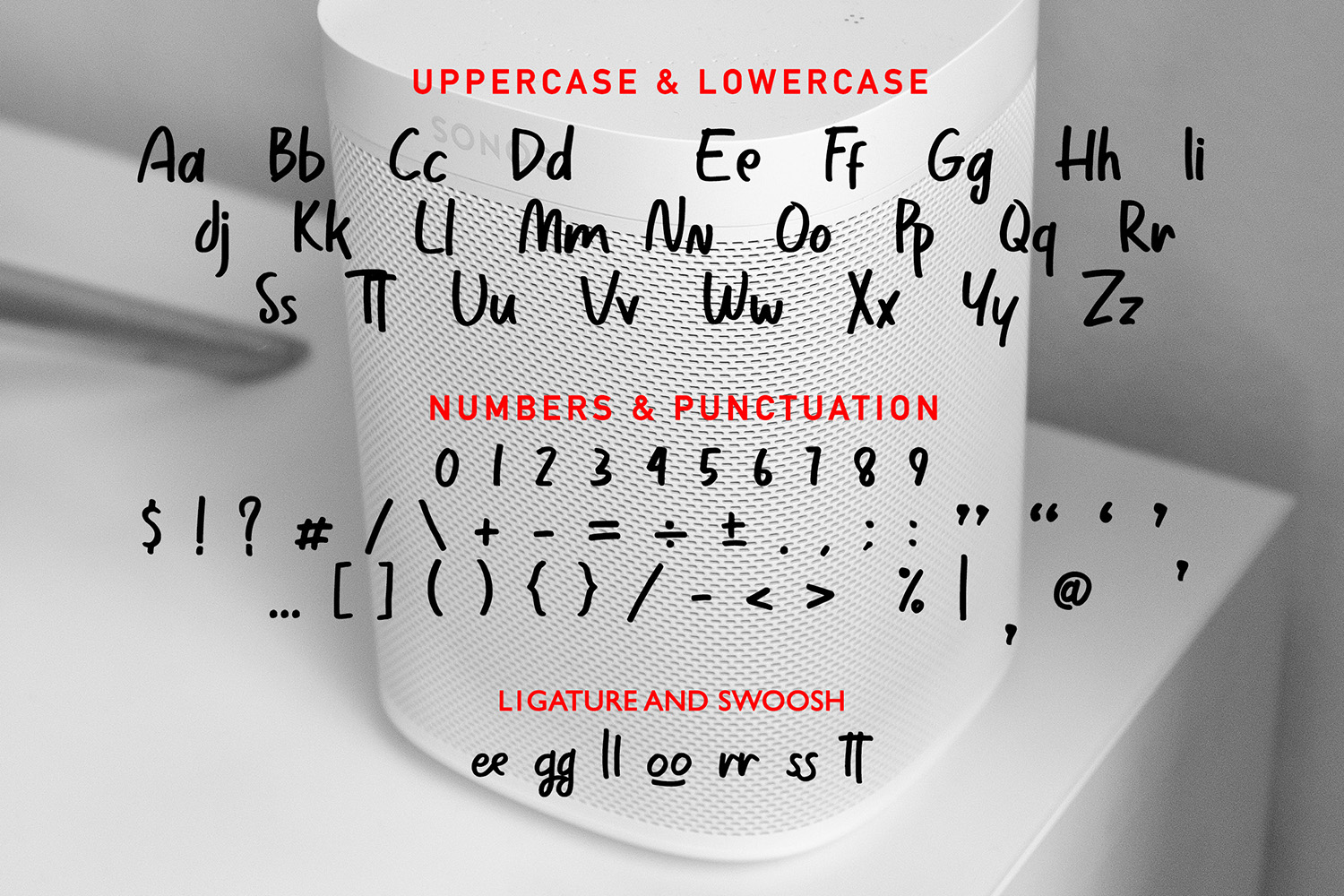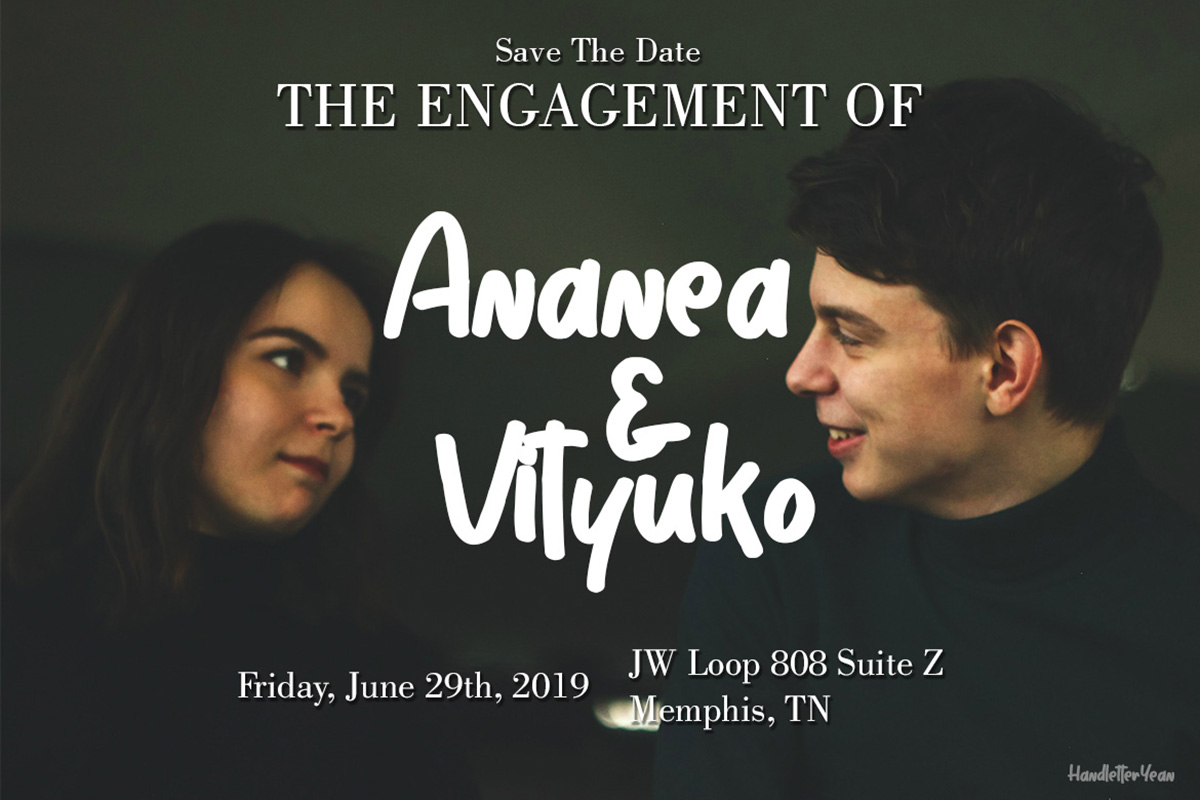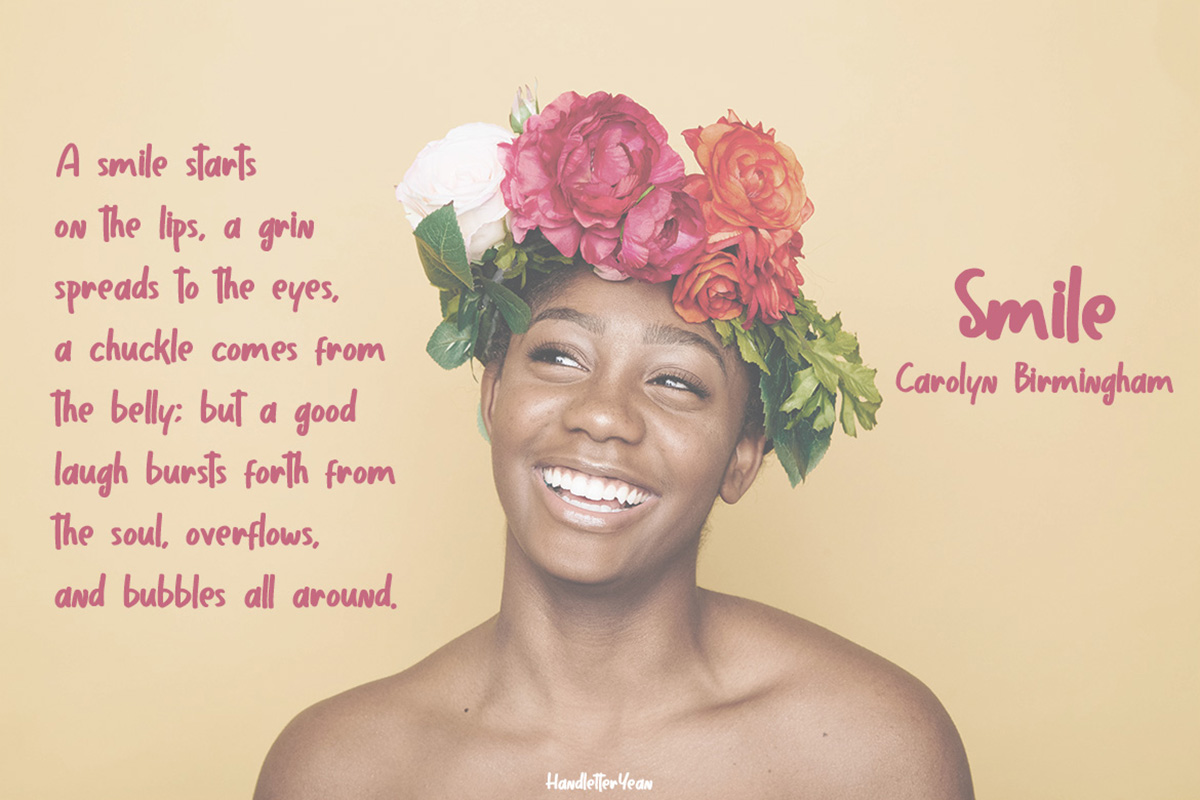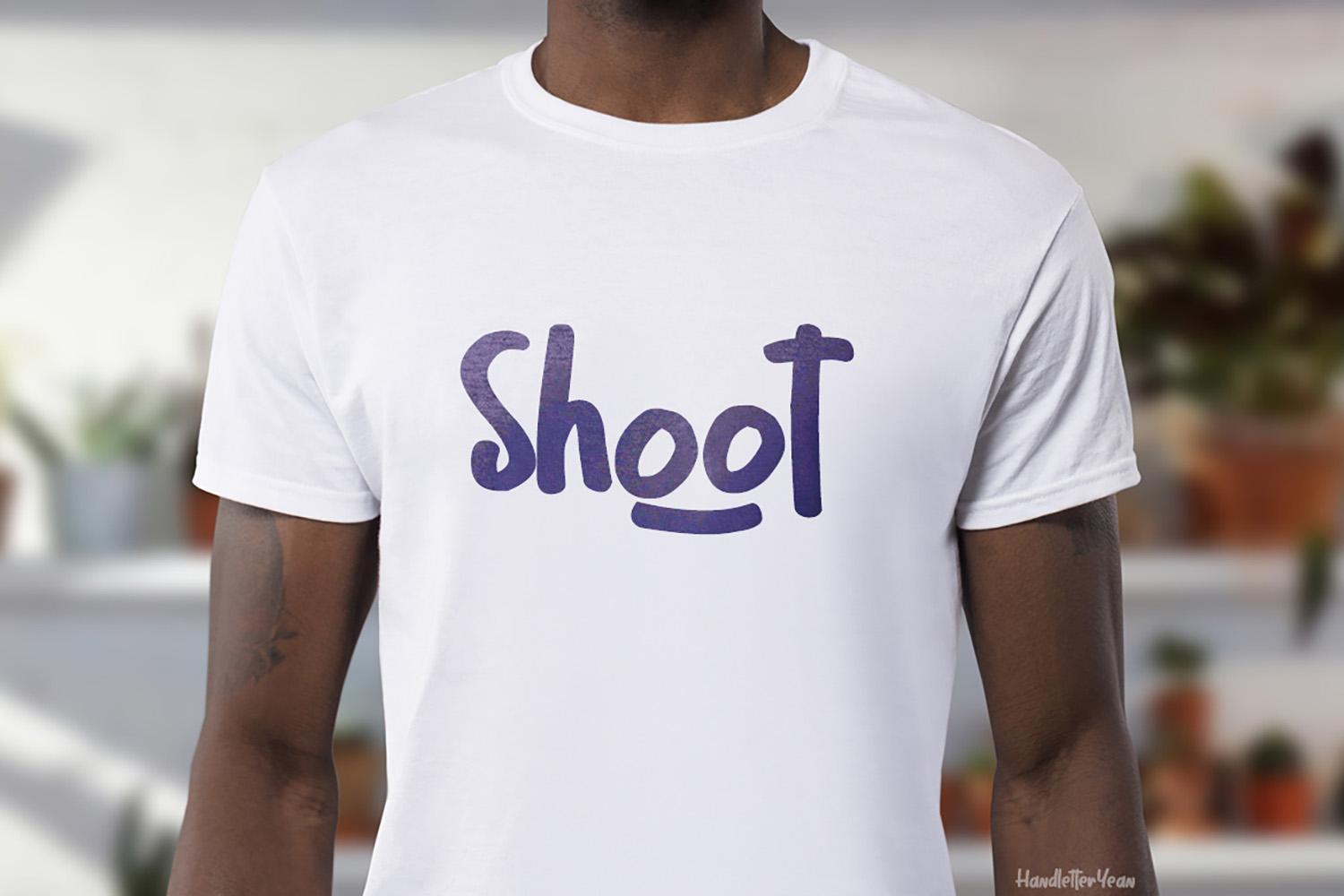
Boombox Free Font
Boombox Free Font is a cute script font which was made to resemble cuteness and playfulness around us in our daily life. With Boombox you can make any of your designs look fun and cheerful, you can use it on posters, invitation, quotation, product design, packaging, and many more. This free typeface was designed by the talented Yean Aguste. If you like it don’t forget to check out the full version.